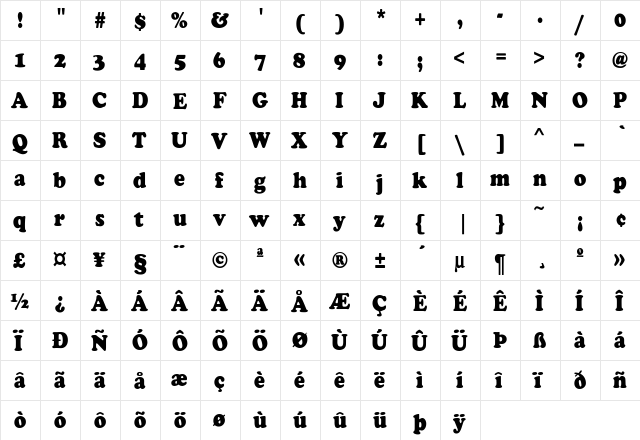
Gooseberry Normal Regular
Design Context for Gooseberry Normal Typeface
Gooseberry Normal offers clean, dependable letterforms without strong stylistic allegiance, making it a practical choice for designers who need flexibility.